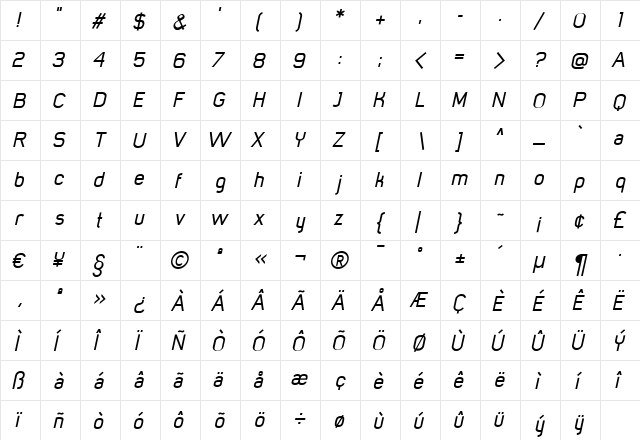
MisterGiacco Regular
Design Context for MisterGiacco Typeface
MisterGiacco takes a measured approach to typography — its balanced proportions and neutral character make it a reliable workhorse for both digital and print work.